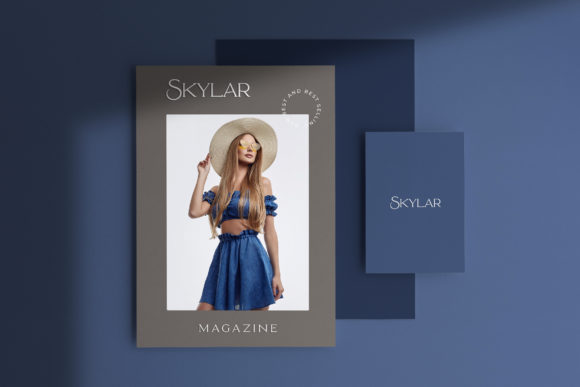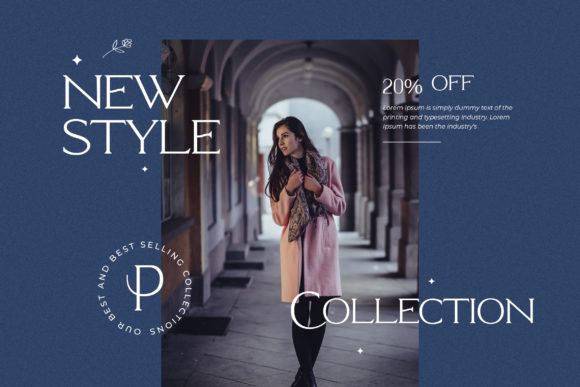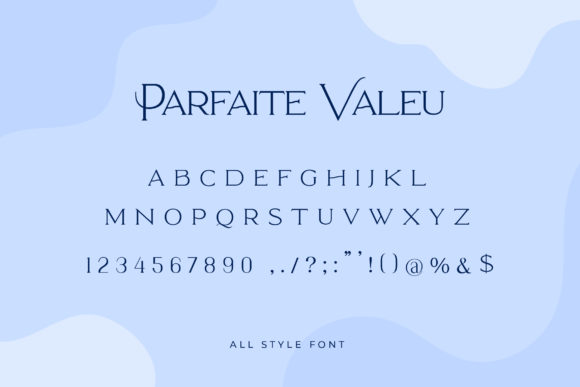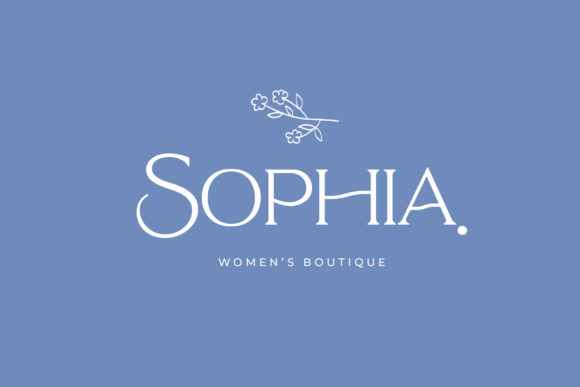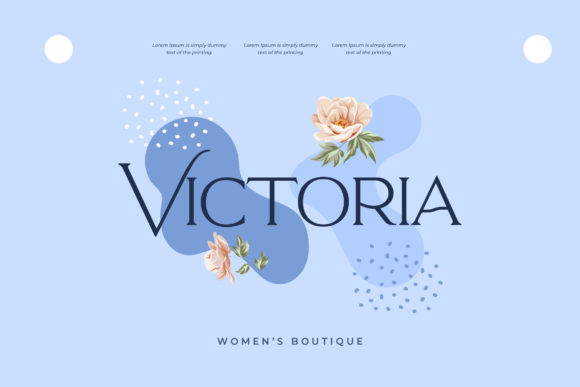
Introduction to Parfaite Valeu Font
As a designer, you know that the right font can make all the difference in bringing your creative project to life. It’s that moment when you’re brainstorming ideas, sipping your morning coffee, and suddenly, the perfect font pops into your head. For me, that moment came when I stumbled upon the elegant and refined Parfaite Valeu Font.
This beautiful serif font is more than just a pretty face – it’s a valuable design resource that will elevate any project you throw at it. With its clean, thin, and smooth vibe, Parfaite Valeu Font is the perfect addition to your design toolkit. Whether you’re working on a high-quality brochure, creating a logo, or designing a website, this font is sure to impress.
What sets Parfaite Valeu Font apart is its stunning design and versatility. You can download it for free and use it with a transparent background, giving you the freedom to experiment with different design concepts. Whether you’re a seasoned pro or just starting out, Parfaite Valeu Font is an excellent choice for any creative project that requires a touch of sophistication and class.
Key Features of Parfaite Valeu Font
- Includes a transparent background for seamless integration
- Perfect for designers and artists seeking a unique, elegant look
- Comes in a single weight, ideal for projects requiring a clean, minimalist aesthetic
- Supports a wide range of languages and characters
Honest Review: Parfaite Valeu Font
I recently had the opportunity to work with the Parfaite Valeu Font, and I must say, I was impressed. As a designer, I’m always on the lookout for high-quality design resources that can elevate my creative projects. This font definitely delivers.
Here are some of the things that work well with the Parfaite Valeu Font:
- ✨ The font has a transparent background, which is perfect for creating custom designs and graphics.
- ✨ It’s highly versatile and can be used for a wide range of creative projects, from branding and marketing materials to digital art and more.
- ⚠️ The font may require some adjustments to achieve the desired look, as it can be quite ornate and intricate.
Overall, I’m very impressed with the Parfaite Valeu Font. It’s a great addition to any designer’s toolkit, and I would definitely recommend it for creative projects. With a little patience and practice, you can achieve amazing results with this high-quality font.
How to Use Parfaite Valeu Font
Parfaite Valeu Font is a high-quality design resource ideal for creative projects requiring a sophisticated touch. With a transparent background, this font is perfect for overlaying text on images or creating visually appealing graphics.
Tips for Getting the Most Out of Parfaite Valeu Font
Experiment with different font sizes and colors to achieve the desired visual effect. Use Parfaite Valeu Font in combination with other design elements to create a cohesive look.
Parfaite Valeu Font is ideal for:
- Creating eye-catching social media graphics
- Designing elegant business cards and brochures
- Adding a touch of sophistication to presentations and reports
Alternatives to Parfaite Valeu Font
Great Vibes Font is a high-quality, elegant script font that’s perfect for creative projects that require a touch of sophistication. It’s a great alternative to Parfaite Valeu Font when you need a more refined and elegant look. Great Vibes Font is available for free download and features a transparent background, making it easy to use in various design resources.